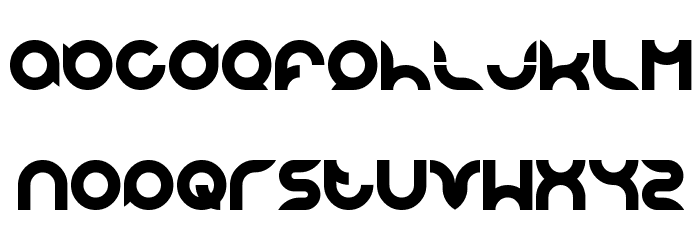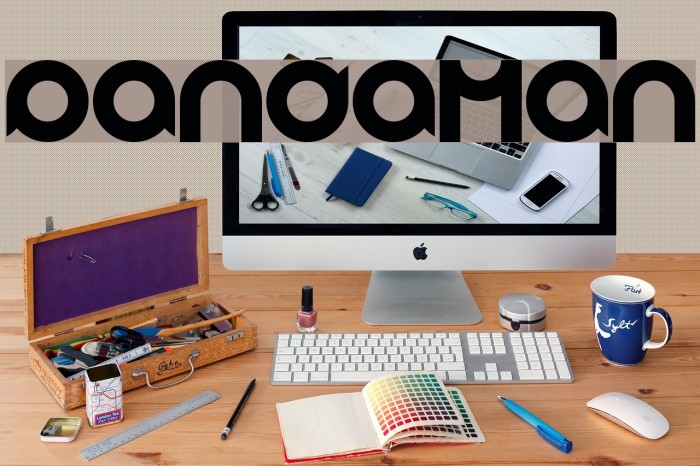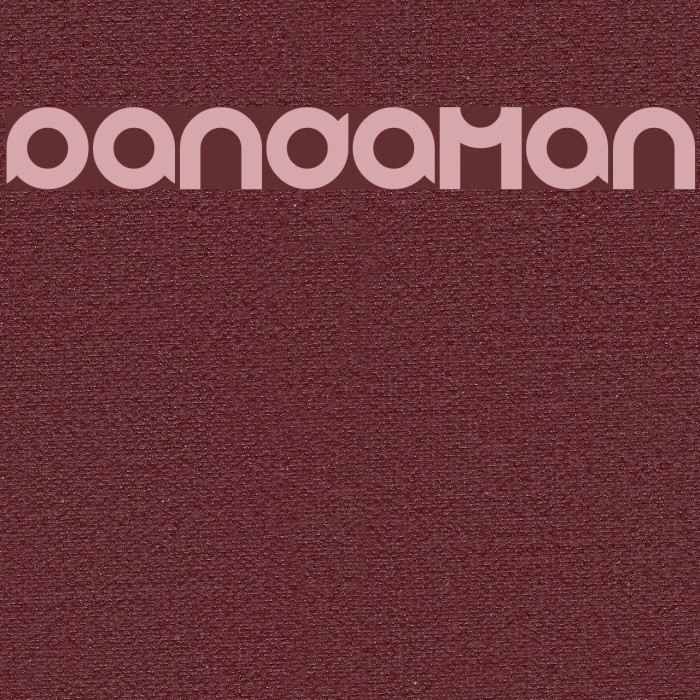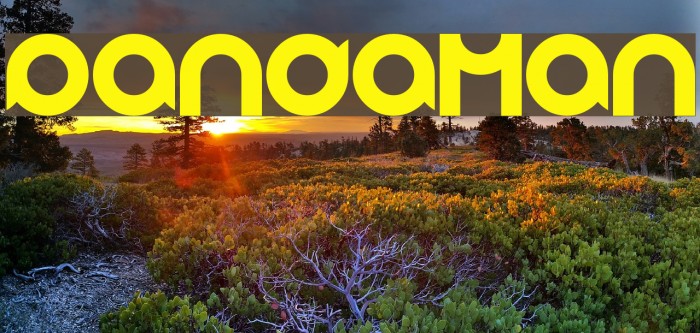
pandaman Font
This font features a bold and geometric design with a futuristic aesthetic. The characters are constructed with thick, uniform strokes and exhibit a unique blend of curves and sharp angles. The letters are highly stylized, with some characters incorporating cut-out sections that add to the modern and abstract feel. The overall appearance is striking and eye-catching, making it suitable for creative and innovative projects. The uppercase and lowercase letters maintain a consistent style, ensuring visual harmony across different text compositions.
A bold, geometric font with a futuristic and abstract design.
- Proposed Projects: Ideal for technology branding, sci-fi posters, modern art installations, and innovative product packaging.